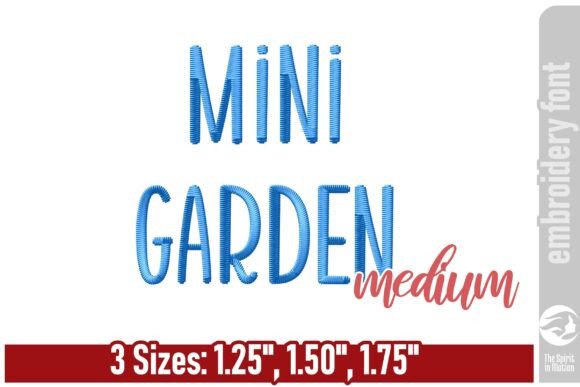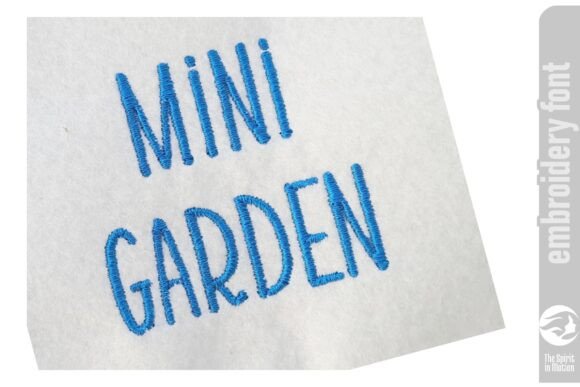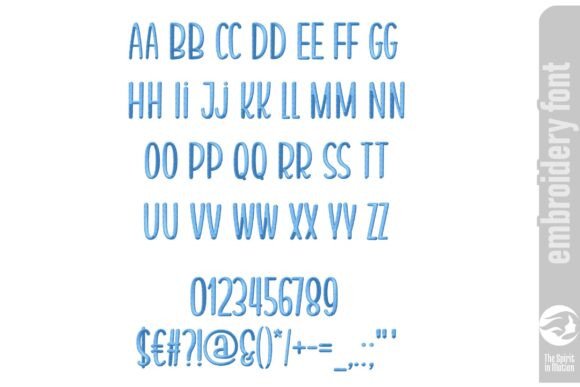
Mini Garden Embroidery Font – Medium
Meet Mini Garden, a slim and playful handwritten embroidery font that brings a light and cheerful touch to your projects. With its narrow, whimsical letterforms, it’s perfect for stitching names, quotes, or labels on clothing, accessories, and gifts with a fun and modern feel.